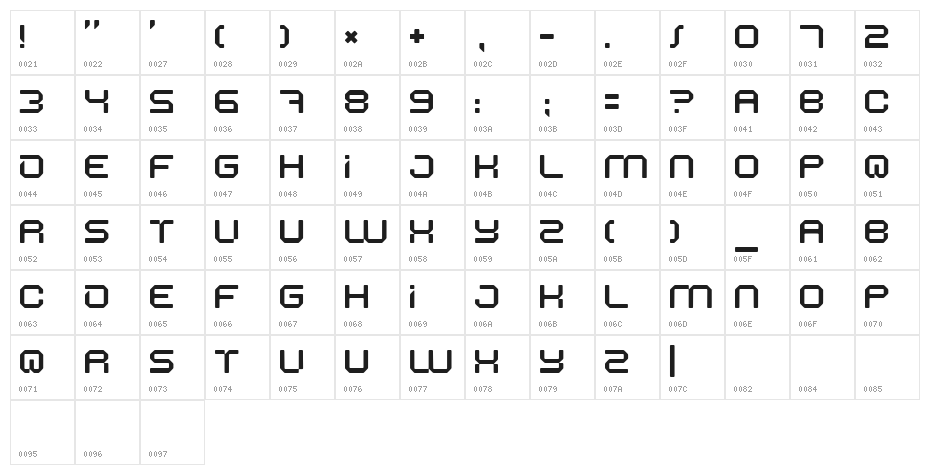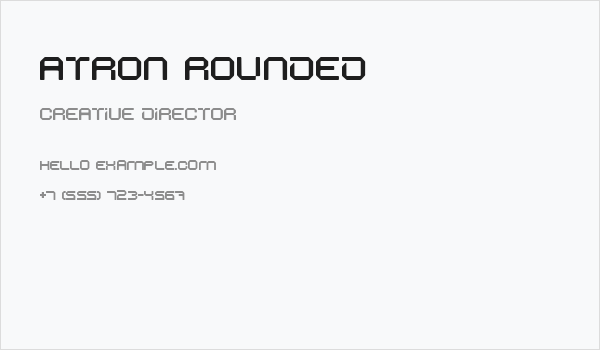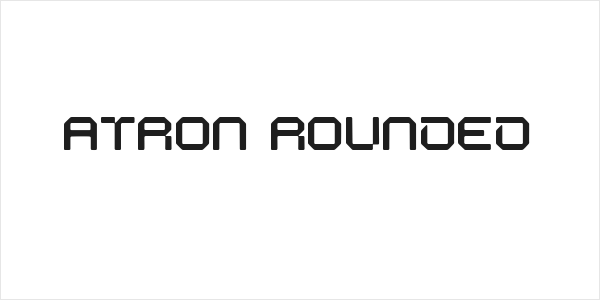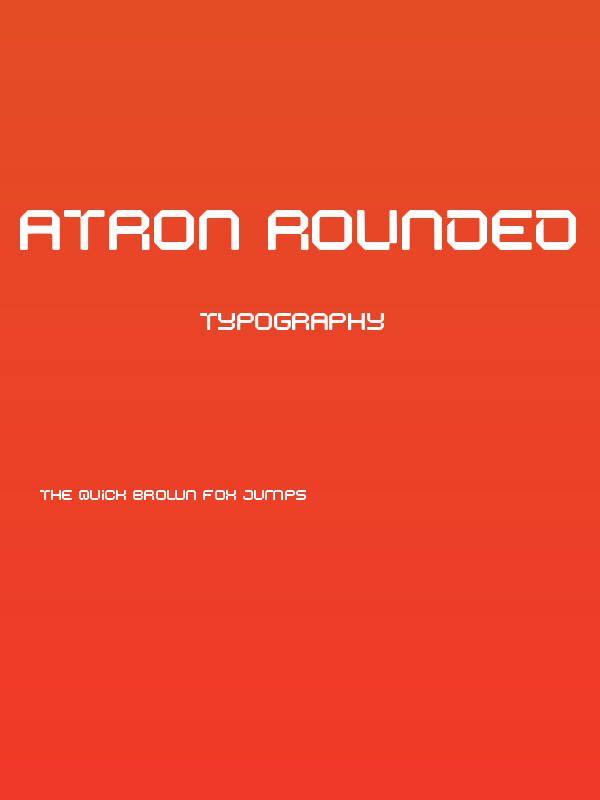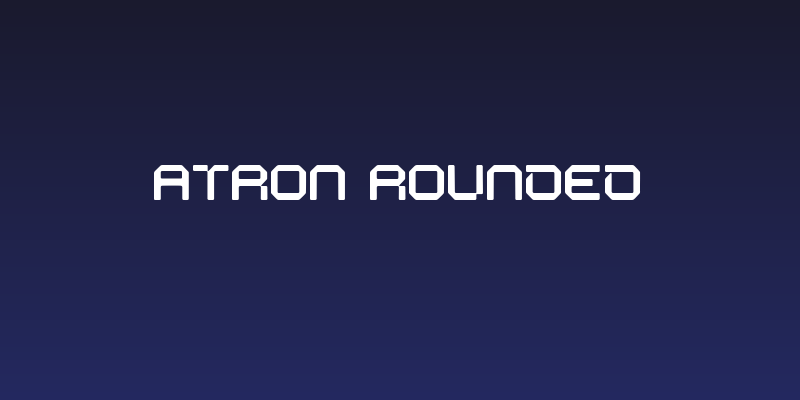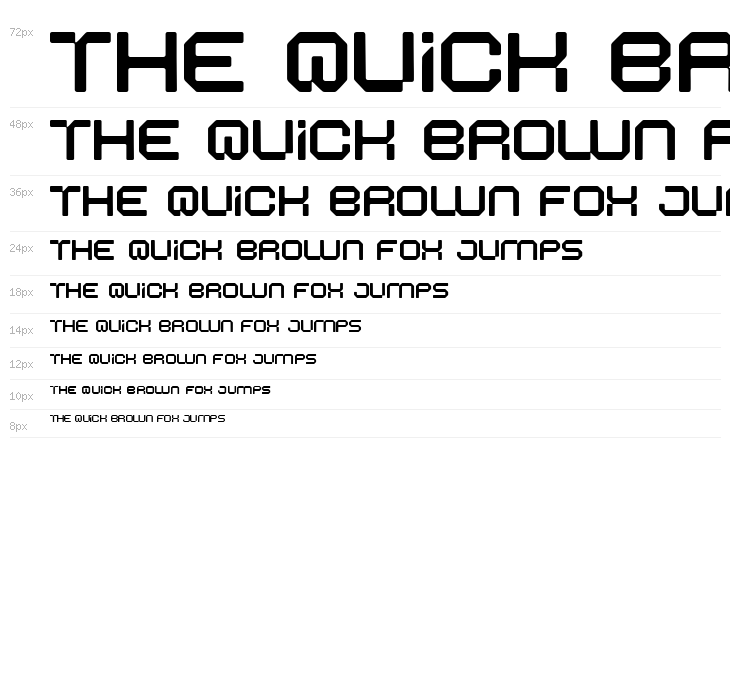
ATRON Rounded Font
ATRON Rounded Description
This font features a modern, geometric design with rounded edges, giving it a futuristic and sleek appearance. The characters are uniformly constructed with consistent stroke widths, creating a harmonious and balanced look. The rounded corners soften the otherwise rigid geometric shapes, making the font approachable and versatile. It maintains a clean and uncluttered aesthetic, suitable for various design applications. The uppercase and lowercase letters are distinct yet cohesive, and the numerals and special characters are designed to match the overall style seamlessly.
| Use Case | Logos, Headlines, Digital Interfaces |
| Proposed Projects | Ideal for tech-related branding, futuristic designs, digital interfaces, and modern advertising. |